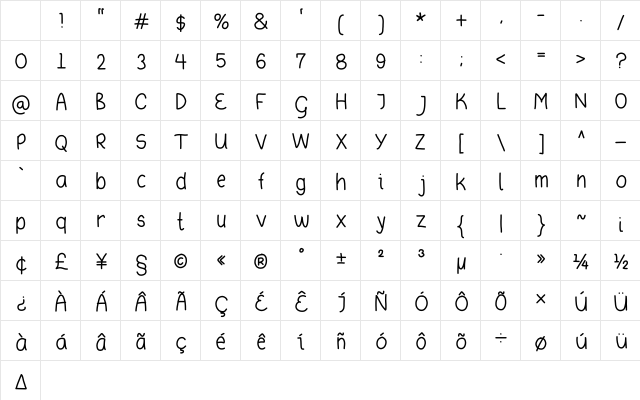
Complete Asdafdasg Medium glyph index. Displaying only characters natively supported by Asdafdasg Medium font.
Asdafdasg is a composed and adaptable typeface that performs quietly and consistently across a wide range of design contexts.